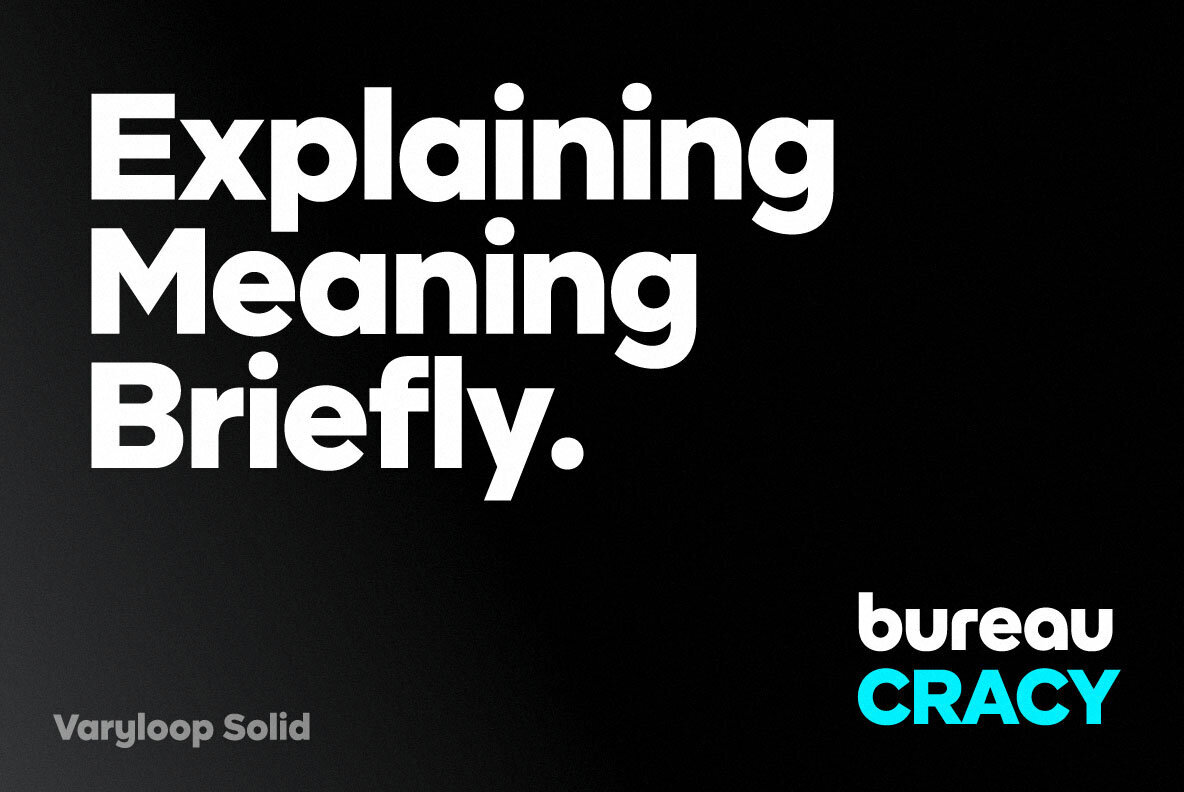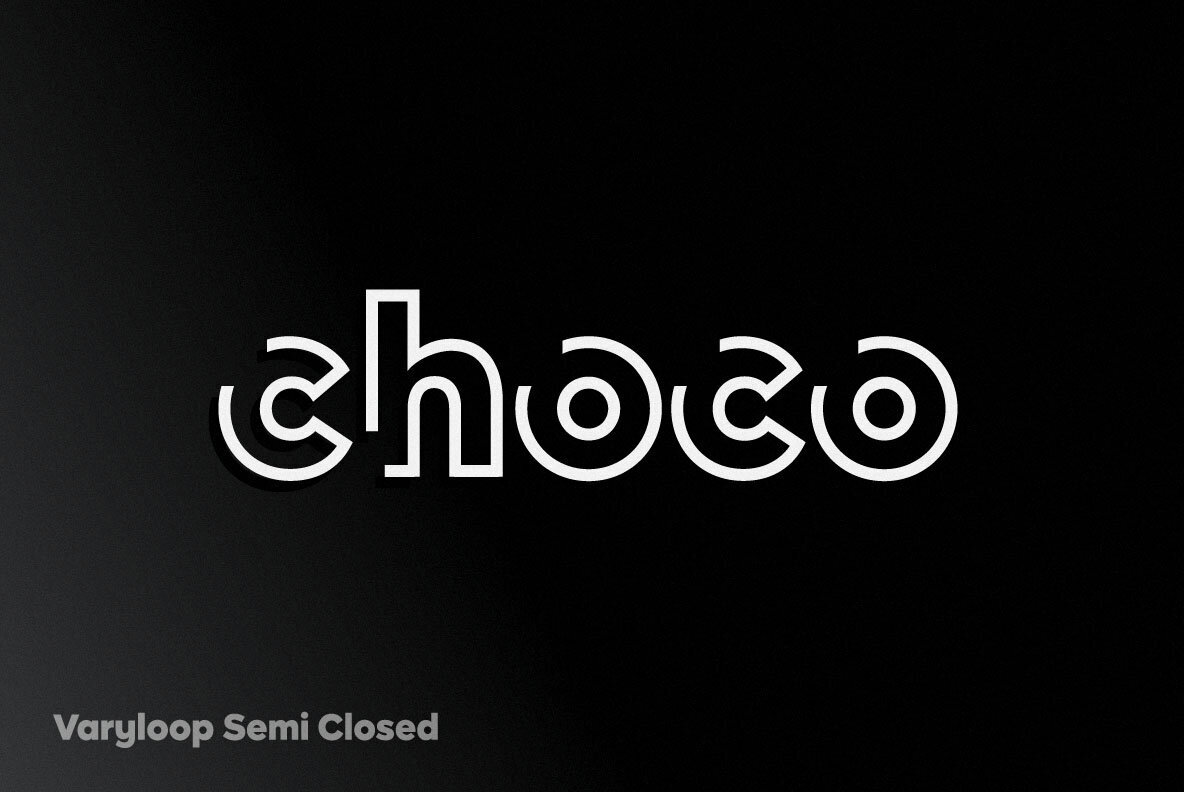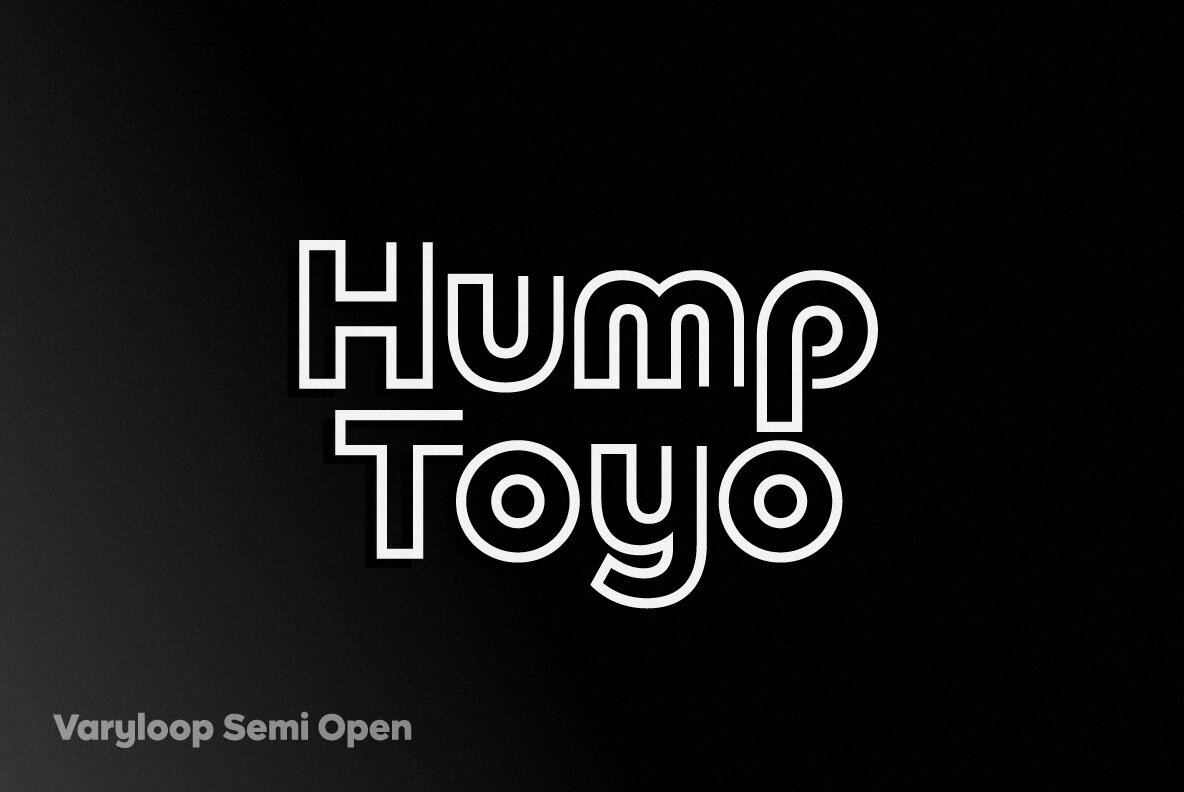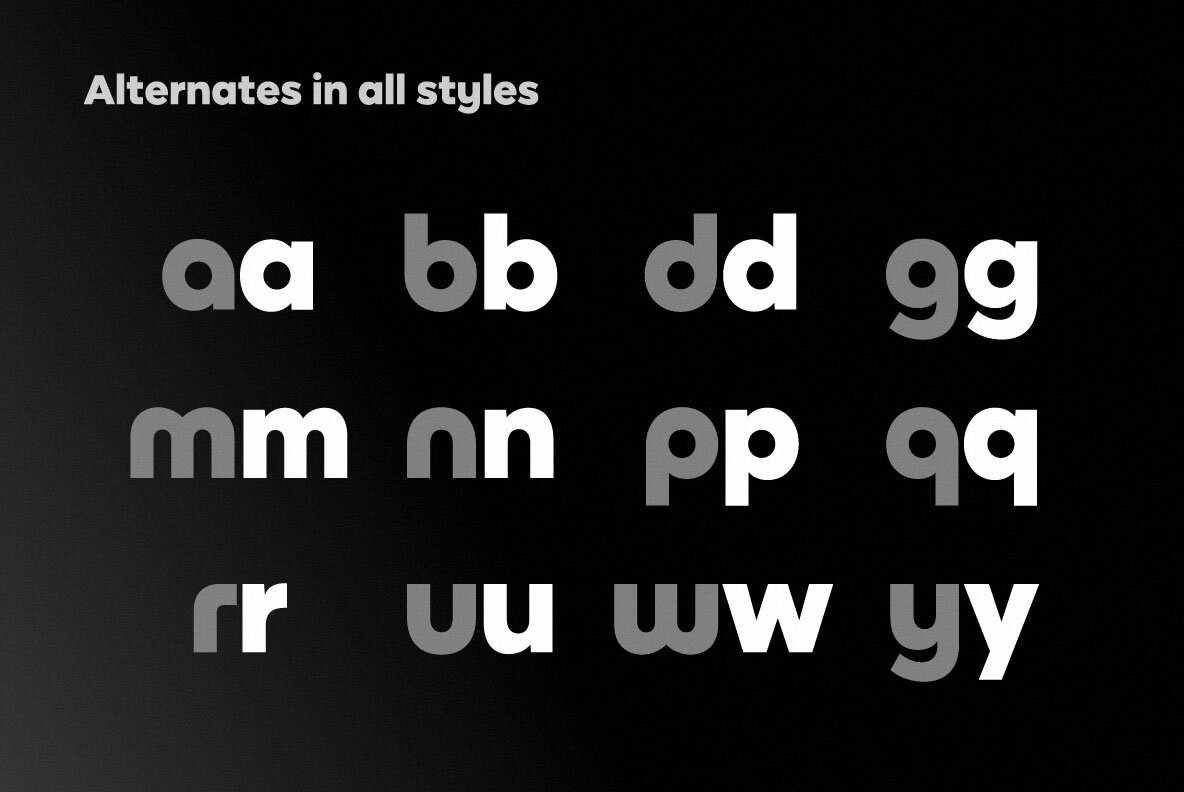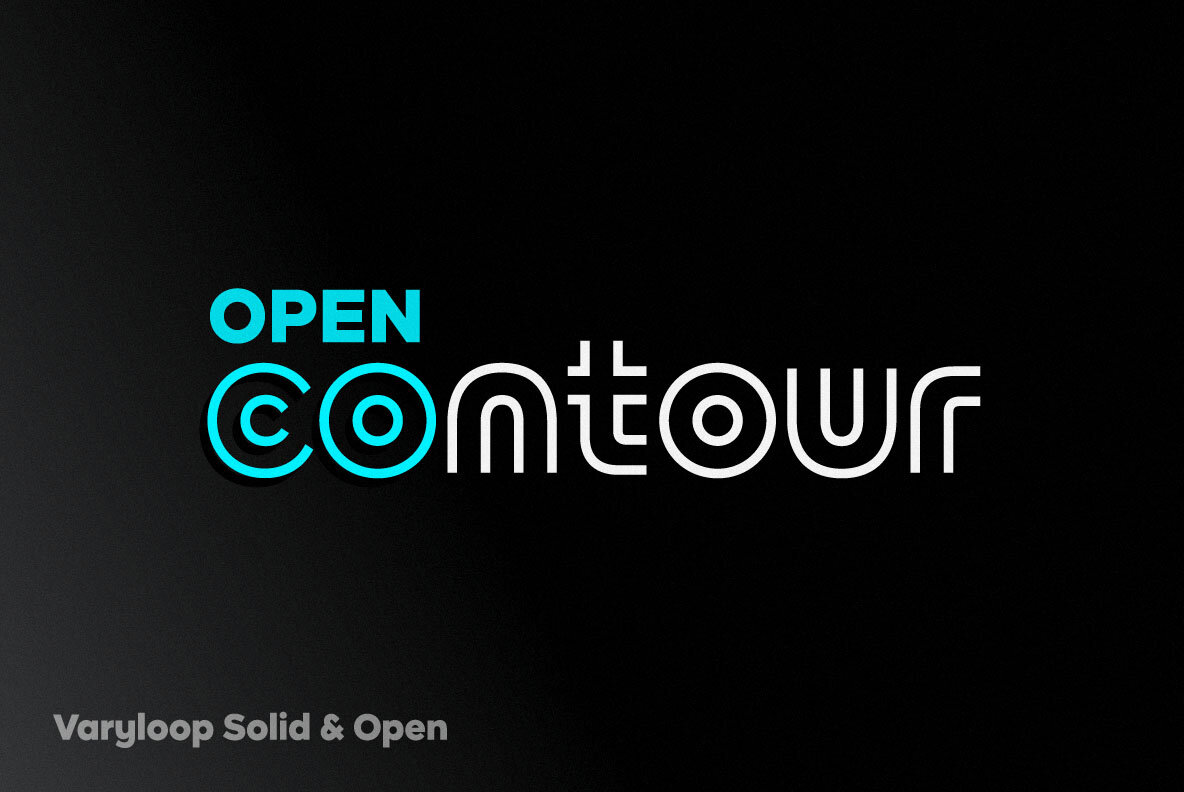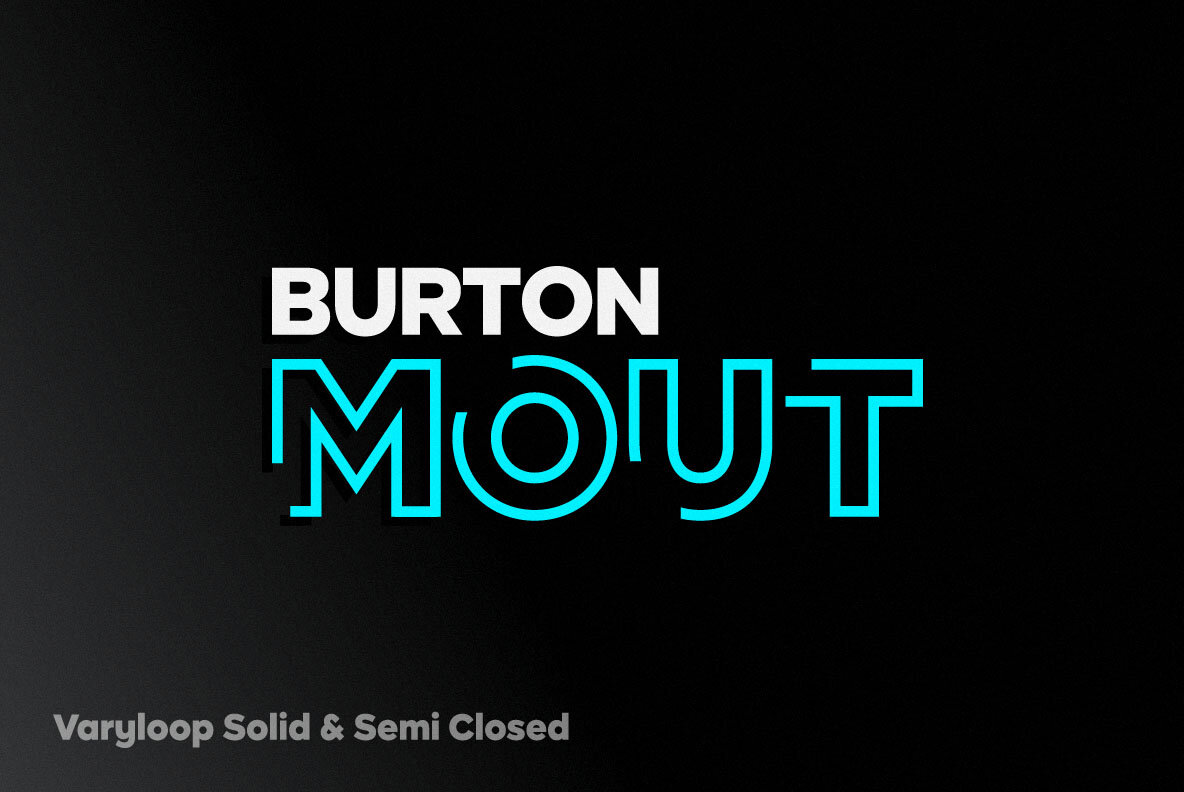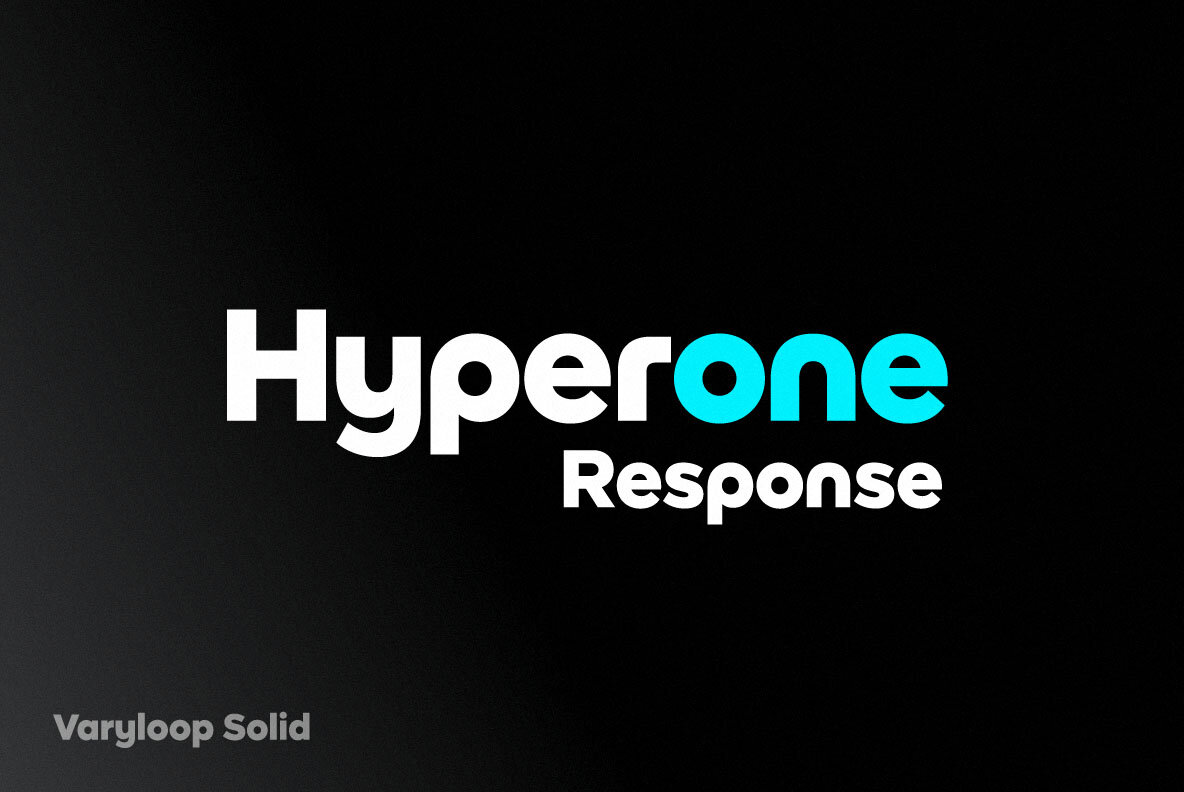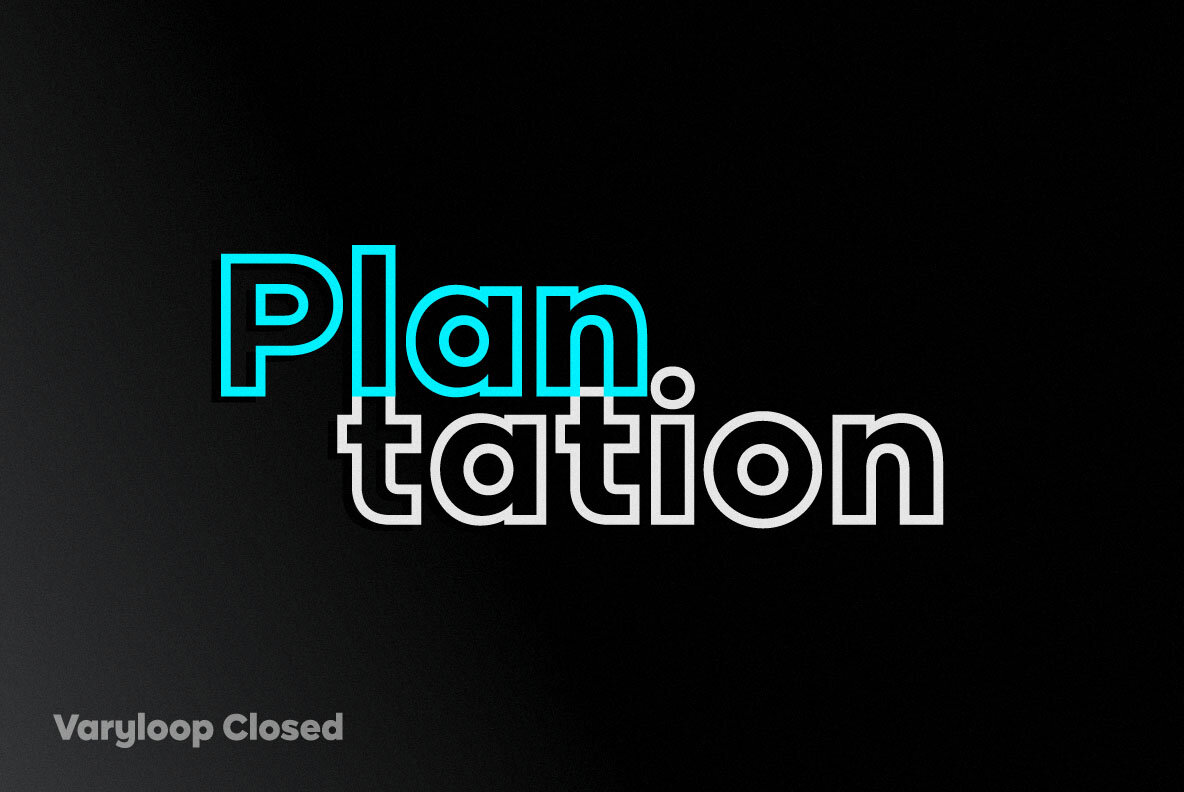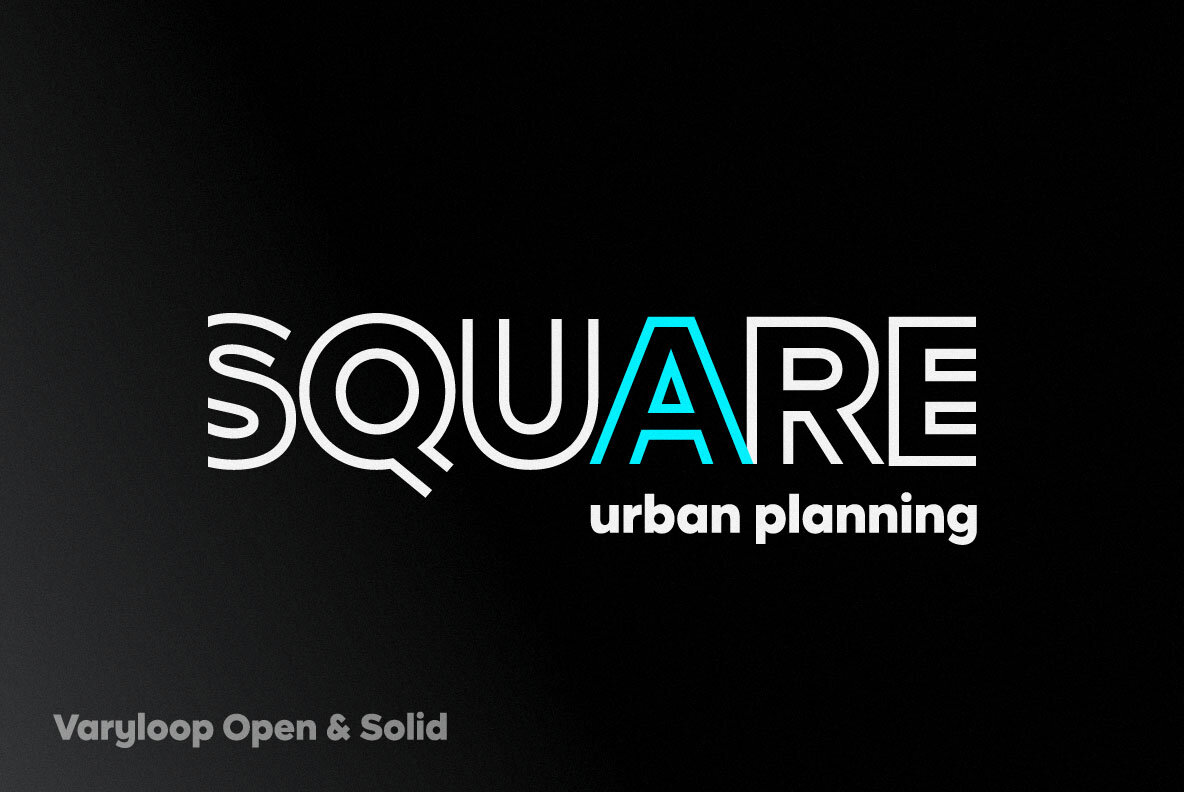
Varyloop Font
Varyloop Semi Closed
Varyloop Semi Open
Varyloop Closed
Varyloop Open
Varyloop Solid
Varyloop font family is suitable for creating minimalistic logos, wordmarks, titles, taglines. You can mix different styles and alternate characters to get an interesting result.
- Solid and outline styles
- Multilanguage
- Number of stylistic alternates